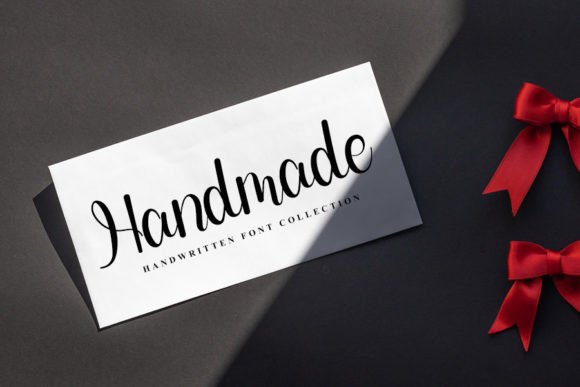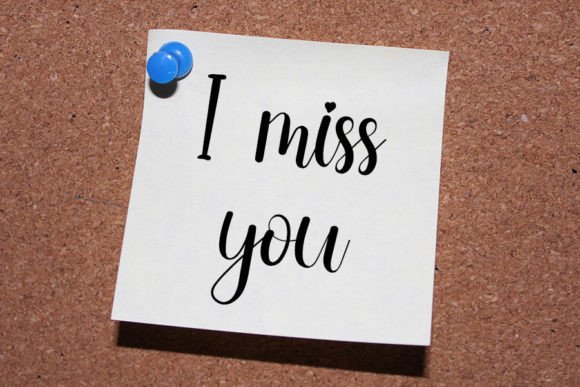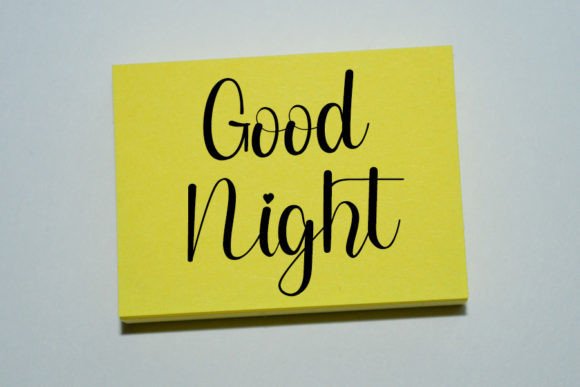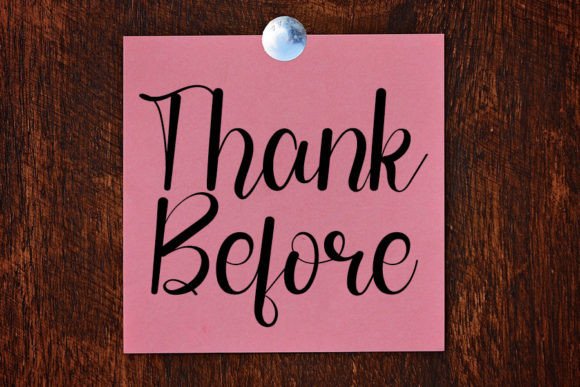
Daisy Font
About Daisy Font
**”Daisy” Handwritten Font: Simple Elegance for Stunning Designs**
“Daisy” is a captivating handwritten font that blends simplicity and elegance to perfection. With its distinct and timeless style, this font can elevate a wide range of design projects. Here are some creative ways to make the most of the “Daisy” font in your designs:
1. **Wedding Invitations:** “Daisy” font’s elegant yet approachable look is perfect for creating romantic and sophisticated wedding invitations. It adds a touch of timeless charm to your special day.
2. **Greeting Cards:** Design heartfelt greeting cards for various occasions, from birthdays to thank-you notes. The font’s distinct style makes your messages feel personal and sincere.
3. **Logo Design:** Create logos for boutique shops, beauty salons, or any business that aims for a refined and welcoming image. “Daisy” font adds a touch of class to your brand identity.
4. **Quote Graphics:** Craft visually appealing quote graphics for social media posts or inspirational prints. The font’s simplicity allows the message to take center stage.
5. **Book Covers:** Use “Daisy” font for book titles and author names on covers, particularly for novels, poetry collections, or self-help books with a warm and inviting tone.
6. **Product Packaging:** Apply the font to product labels and packaging for cosmetics, handmade soaps, candles, or artisanal foods. It conveys a sense of quality and authenticity.
7. **Boutique Signage:** Design charming signage for boutiques, cafes, and small businesses. “Daisy” font’s elegant touch makes your storefront inviting and memorable.
8. **Monogram Design:** Create personalized monograms for wedding stationery, custom gifts, or personal branding. “Daisy” font’s graceful letters are ideal for monogram composition.
9. **Event Invitations:** Craft invitations for special events such as bridal showers, anniversaries, or garden parties. The font adds a touch of sophistication to event details.
10. **Blogging Headers:** Use “Daisy” font in blog headers and titles, especially for lifestyle, fashion, or beauty blogs. It sets a welcoming and stylish tone.
11. **Branding Collateral:** Incorporate the font into business cards, letterheads, and other branding collateral to maintain a consistent and elegant brand identity.
12. **Restaurant Menus:** Design elegant menus for fine dining establishments or cozy cafes. “Daisy” font brings a touch of class to culinary descriptions.
13. **Art Prints:** Create art prints with inspiring quotes, illustrations, or typography designs. “Daisy” font adds an element of sophistication to your art.
14. **Stationery Sets:** Develop stationery sets with matching letterheads, envelopes, and notecards. The font’s timeless style elevates your correspondence.
15. **Fashion Labels:** Apply the font to clothing labels and tags for fashion brands that focus on simple and elegant aesthetics.
16. **Elegant Packaging:** Design high-end packaging for luxury goods, perfumes, or specialty chocolates. “Daisy” font enhances the perception of exclusivity.
17. **Photography Watermarks:** Add a personalized and elegant touch to your photography with “Daisy” font as a watermark on your images.
18. **Cocktail Menus:** Craft stylish cocktail menus for bars and lounges. The font’s elegance complements the upscale atmosphere.
19. **DIY Wedding Decor:** Use “Daisy” font for DIY wedding decor, including table numbers, place cards, and signage, for a cohesive and elegant look.
20. **Vintage Designs:** Blend “Daisy” font with vintage-inspired elements for a nostalgic and elegant design, suitable for retro-themed projects.
“Daisy” font’s simplicity and timeless style make it a versatile choice for a wide range of design applications. Its understated elegance adds a touch of sophistication and approachability to your projects, making it a font that designers and creatives alike will fall in love with. Embrace the beauty of “Daisy” font and watch it transform your designs into spectacular creations.